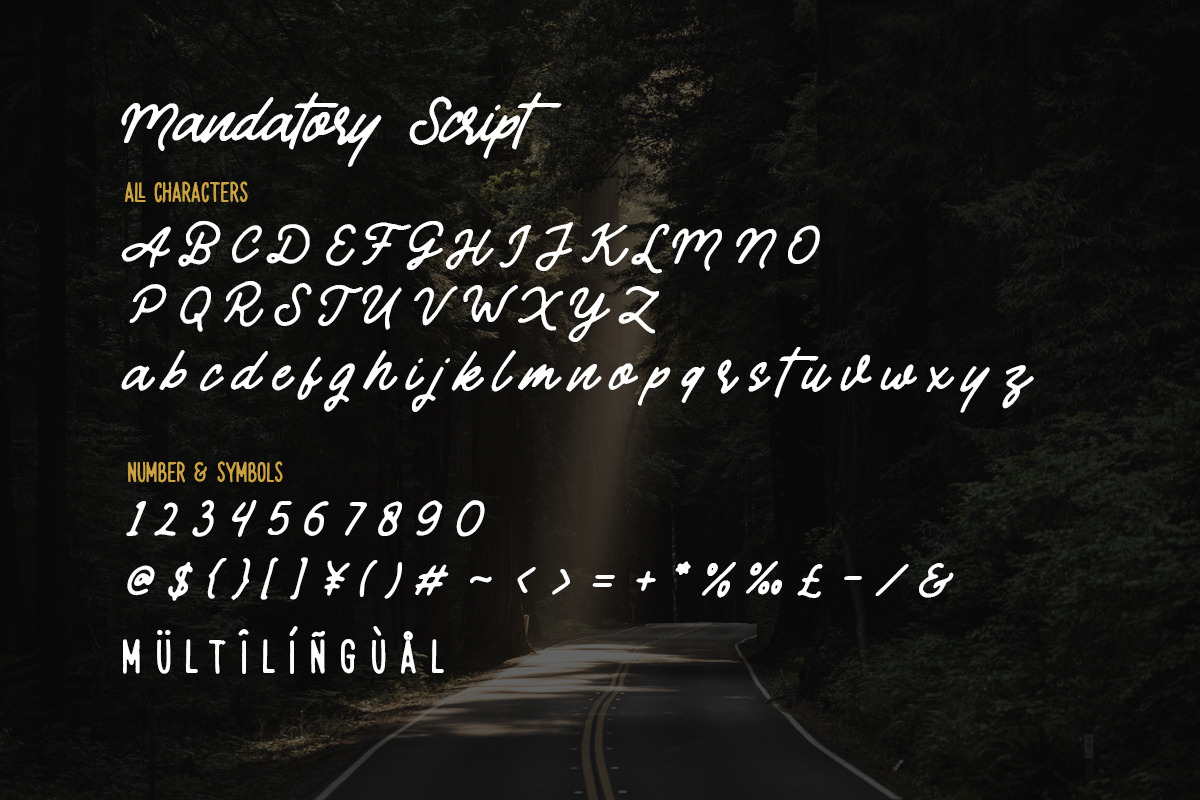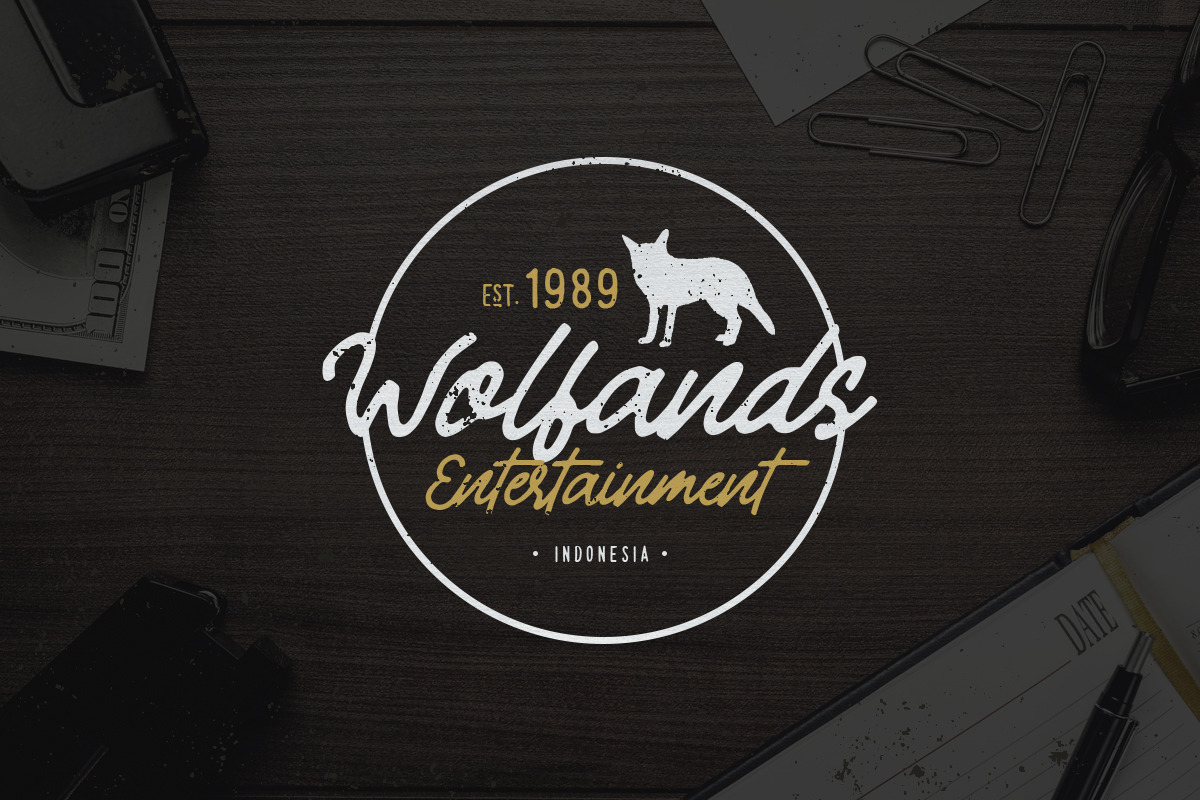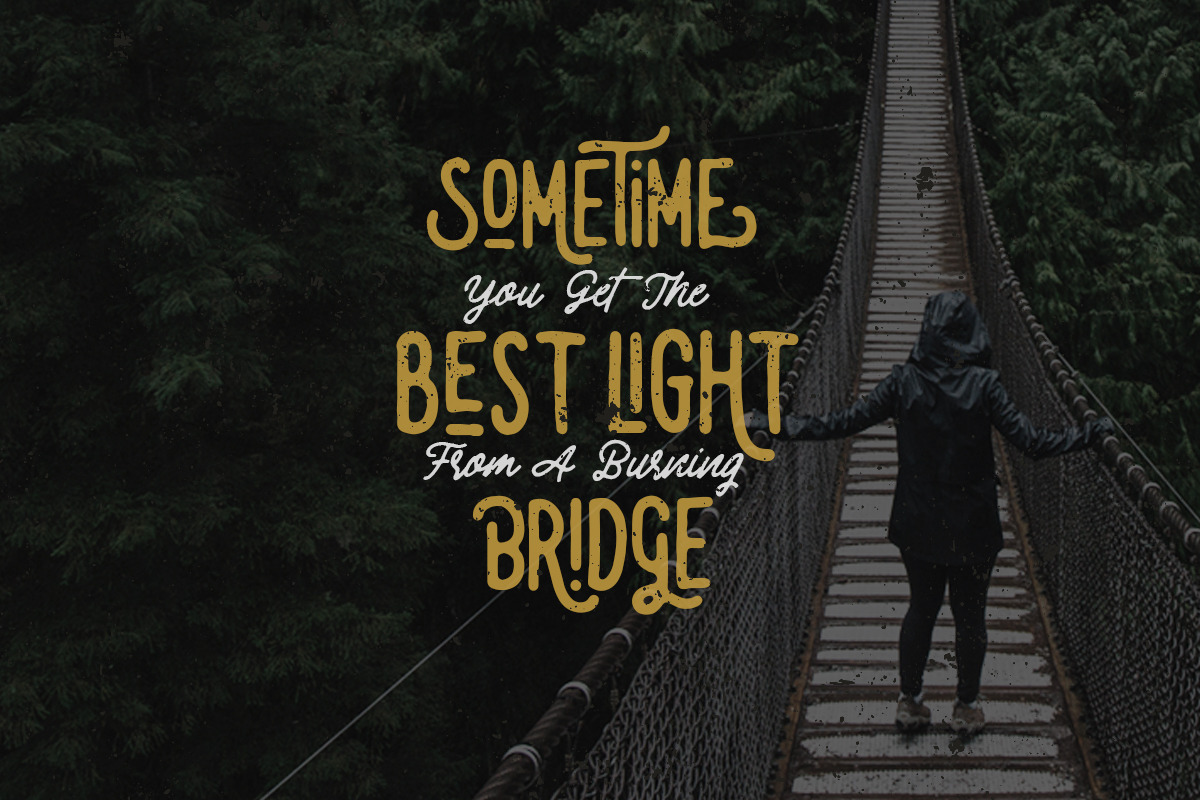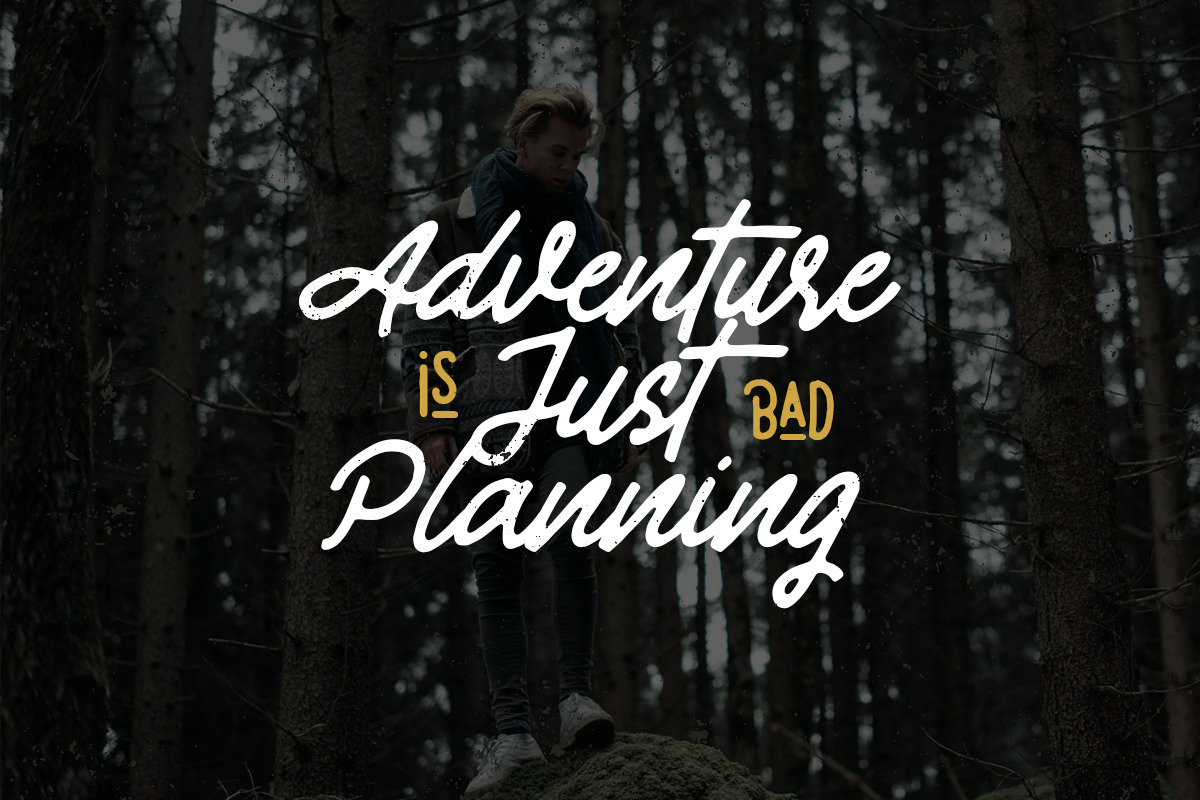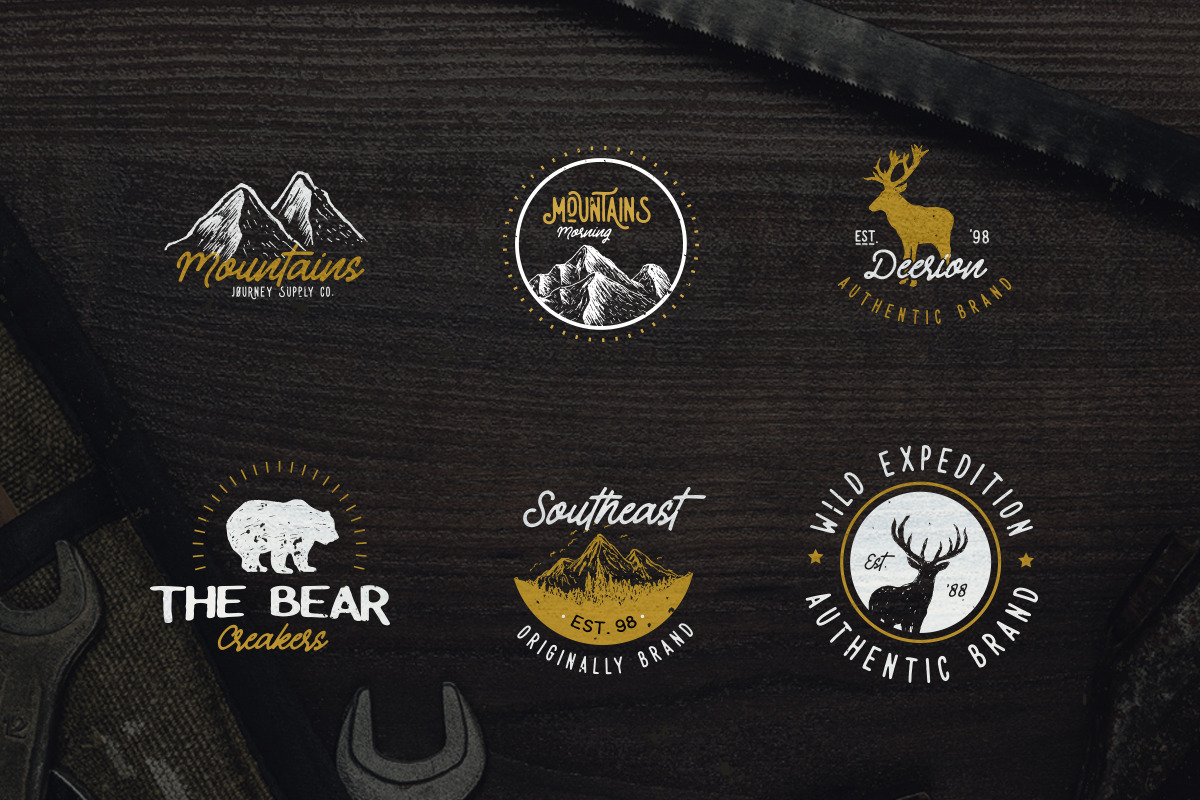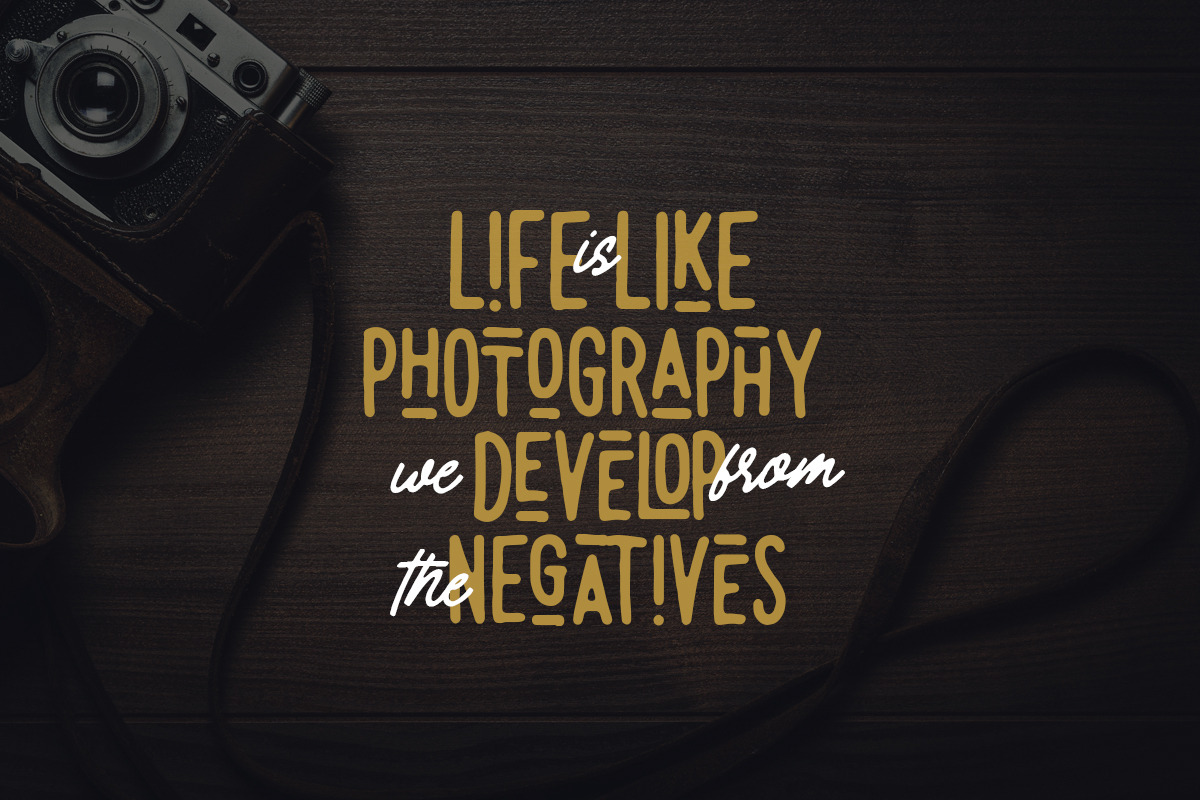
Mandatory - Vintage Font Duo
Introducing, Mandatory! A vintage font duo! This font comes with unique sans and script with the retro feel. Perfect to use in logotype / wordmark, badge, sign board, poster, headline text, apparel, wedding invitation, etc. This font has many opentype features like ligature, stylistic alternate, contextual alternate, swash, etc and support multi language.
- This font comes with unique sans and script with the retro feel.
- This font has many opentype features like ligature, stylistic alternate, contextual alternate, swash, etc and support multi language.
- Mandatory Sans
- Mandatory Script
Mandatory - Vintage Font Duo by Letterhend Studio fits naturally into Branding, posters, packaging, typography.